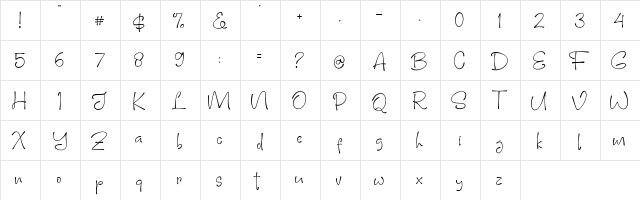
Pinky Cat Regular
| Foundry | Khurasan |
| Designer | Khurasan |
Design Context for Pinky Cat Typeface
Pinky Cat takes a measured approach to typography — its balanced proportions and neutral character make it a reliable workhorse for both digital and print work.